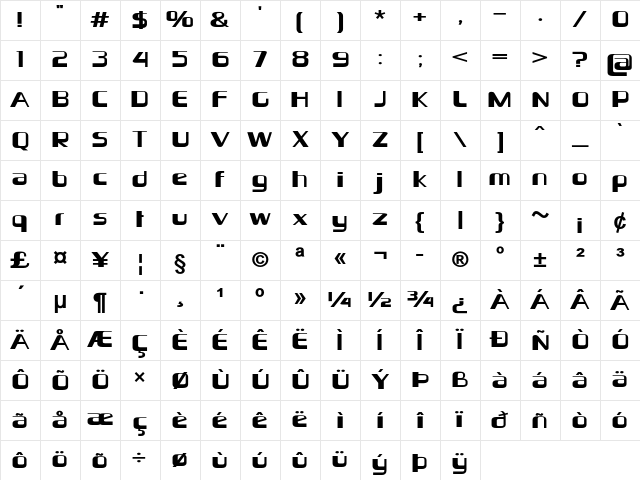
Toffler Bold Free Font
Design Context for Toffler
Toffler is a composed and adaptable typeface that performs quietly and consistently across a wide range of design contexts. Its bold stroke weight gives it real presence on the page.